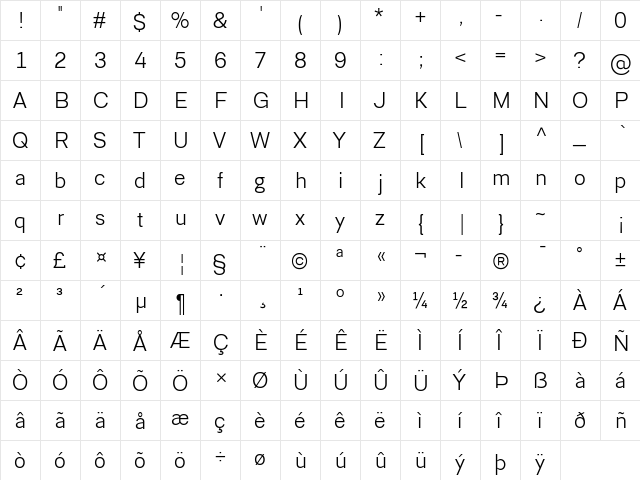
Berka Light
Design Context for Berka Typeface
Berka offers clean, dependable letterforms without strong stylistic allegiance, making it a practical choice for designers who need flexibility. Its slender proportions lend an understated elegance to any composition.
Pro Tip: Use Berka in both headline and body roles to test its range before committing to a single application.